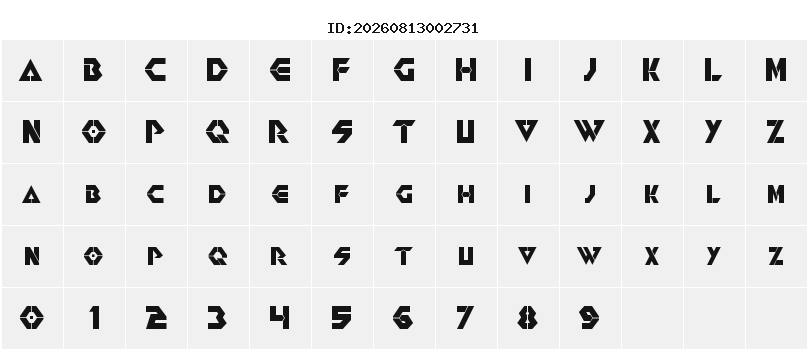
• Font Name: Renegade
• Designer: Neale Davidson
About Renegade.ttf
Renegade.ttf is a modern, elegant sans-serif font designed for ultimate readability and visual harmony. Perfect for branding, headlines, web design, and print materials.